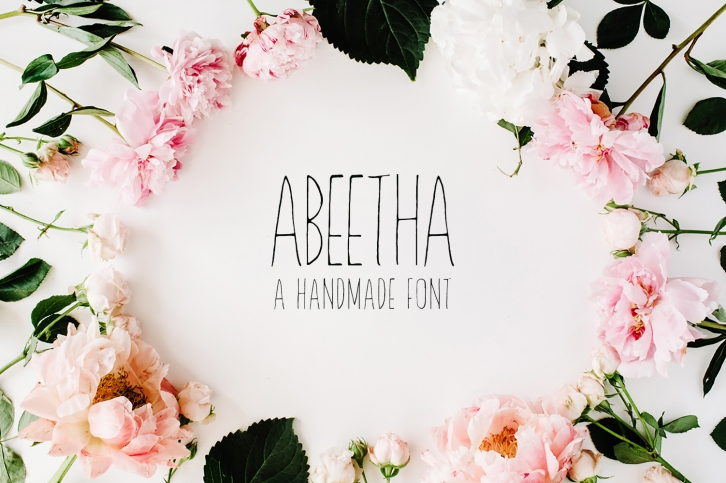
Abeetha Handmade is a great font that was designed by Creativetacos. Imagine the amount of combinations you can create using this font! The archive is 13.22 MB and it was released on January 23, 2018. Abeetha Handmade looks beautiful on wedding invitations, greeting cards, logos, posters, labels, t-shirt designs, logos, business cards and is perfect for use in ink or watercolor works, fashion, magazines, packaging and food menus, children's books and more!